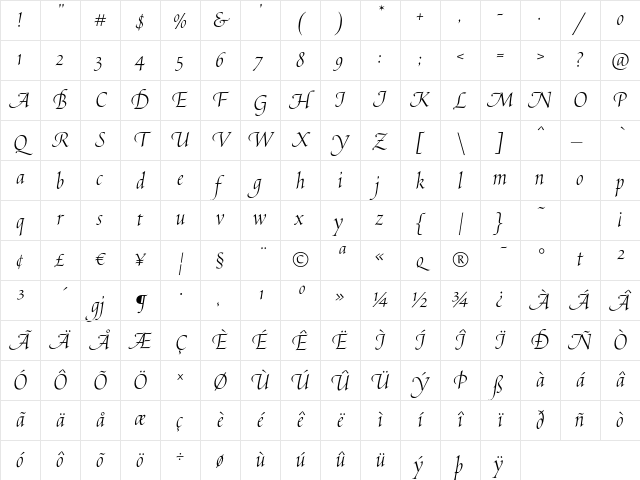
Goteborg is a composed and adaptable typeface that performs quietly and consistently across a wide range of design contexts.
Who designed the Goteborg Regular font?
This font was published by Paul Shaw & Garrett Boge,. Check the technical specs section for copyright and designer details.